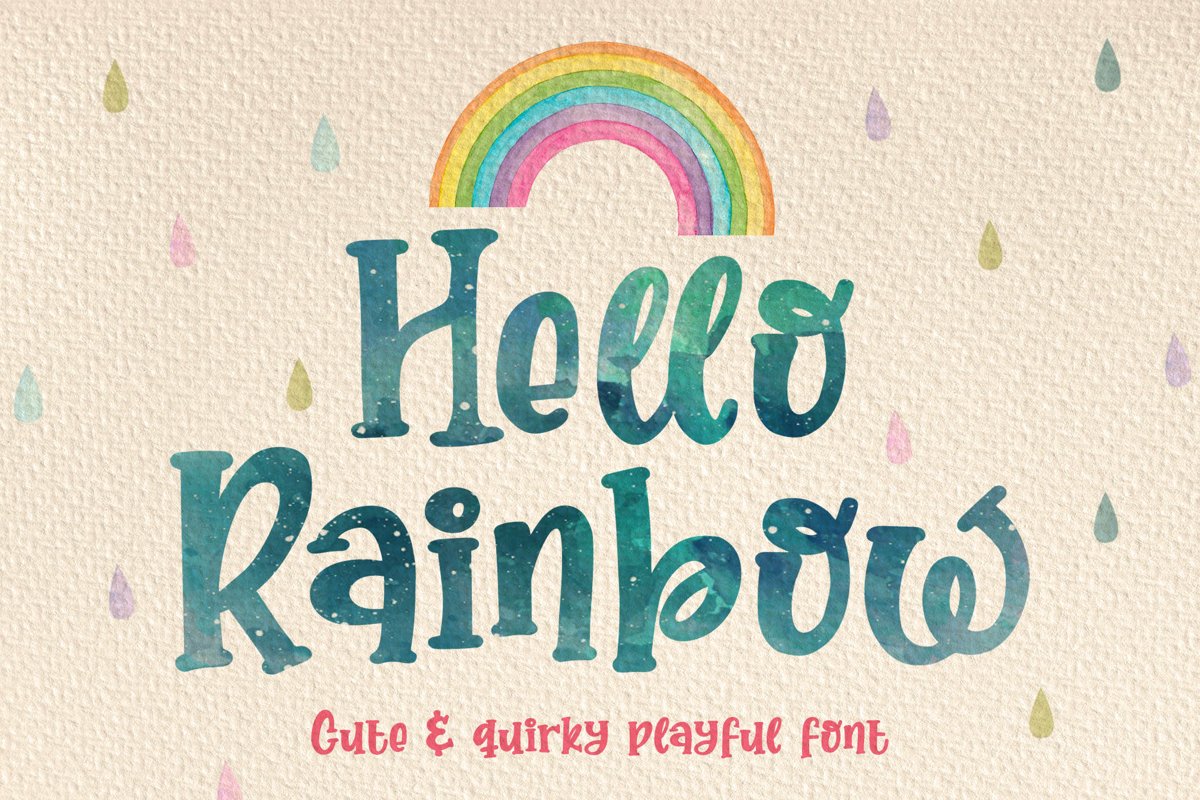
Hello Rainbow
Hello Rainbow is a cute & quirky playful font. It's whimsical order gives unique and fun looks in each character.
Have fun with the quirk uppercase and the lowercase!